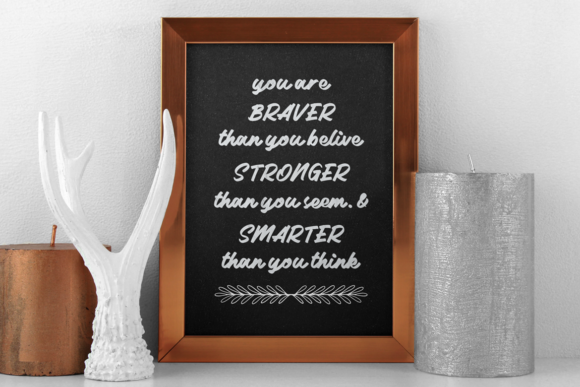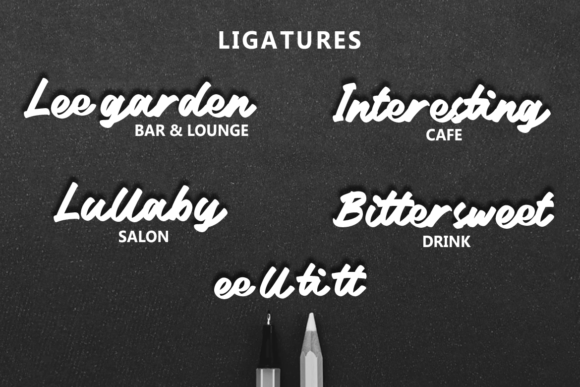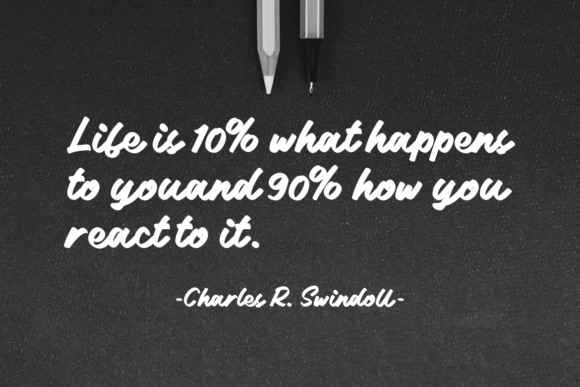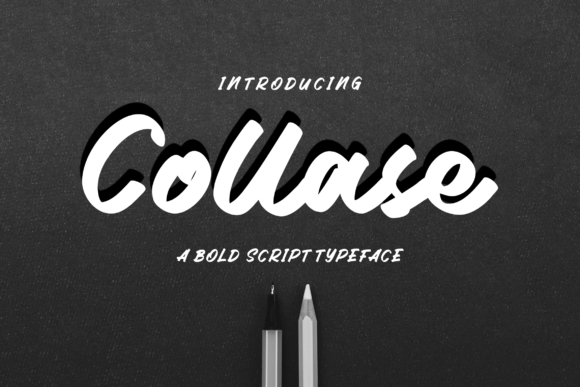
Introduction to Collase Font
Collase is a bold and cursive script font.
This font reads as strong, confident, and dynamic and can add tons of nostalgic character to your designs .
Key Features of Collase Font
Why Choose Collase Font?